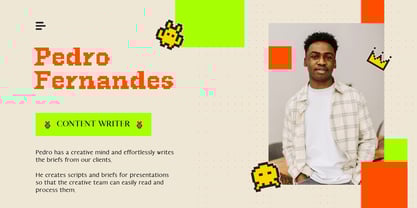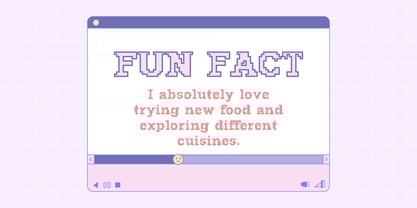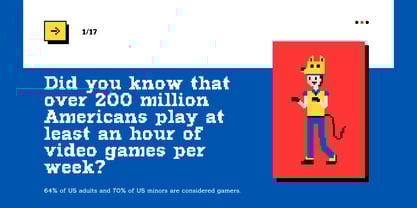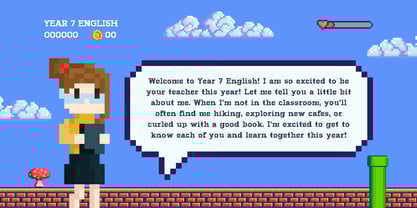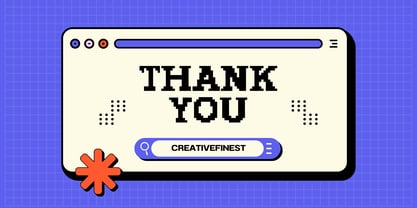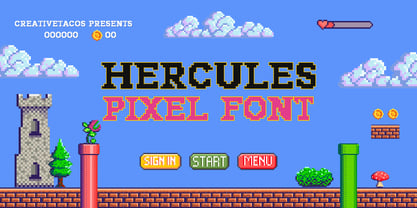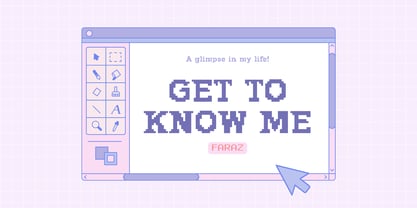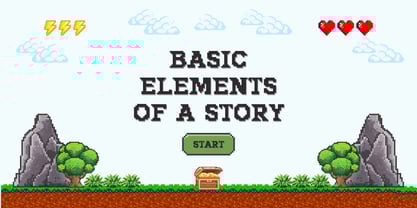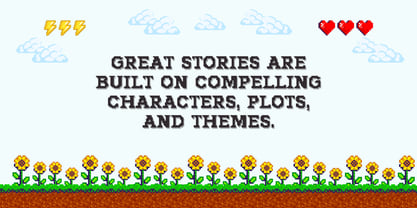
Hercules Pixel Font
by Creativetacos
Hercules Pixel Font is a powerful pixel typeface built for gaming nostalgia and retro design. Hercules combines classic 8-bit aesthetics with modern versatility, creating a font that's perfect for game developers, streamers, content creators, and designers looking to add authentic retro charm to their projects.
Features:
• Classic Gaming Aesthetic: Authentic pixel construction that captures the golden era of video games
• Multiple Character Sets: Complete with standard glyphs, numerals, functional characters, and multilingual support
• Versatile Applications: Perfect for game interfaces, stream overlays, educational content, websites, and creative projects
• Bold Personality: Strong, distinctive letterforms that remain readable at various sizes
• Authentic Pixel Construction: True to the pixelated roots without compromising on clarity
Hercules Pixel Font doesn't just mimic retro gaming visuals—it authentically recreates them with careful attention to pixel-perfect construction. Each character is crafted to maintain legibility while staying true to the chunky, block-based aesthetic that defined early gaming typography.